Smashing Magazine just published my article “Best Practices of Combining Typefaces“. The article expands on some of the principles I’ve covered in other articles here at BonFX, but has a lot of large, original illustrations and uses some of the most popular fonts in design today. Stop by and take a look!
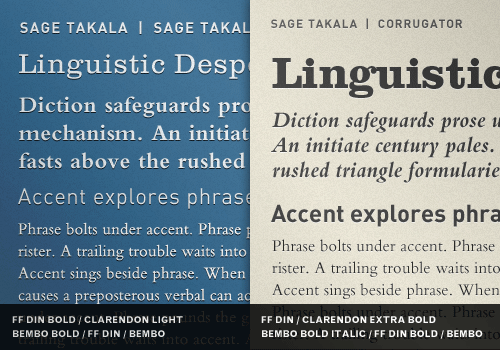
That’s a really solid article, Douglas, with great (and in one case, surprising) examples. Souvenir and Futura Bold–who’da thunk?
Hi Keith: Y, Souvenir and Futura Bold are unlikely but happy partners
“Souvenir and Futura Bold are unlikely but happy partners”
Indeed. Souvenir is one of those faces that has so much personality of its own, that people like me (whose typographic sensibilities may be better than the average bear, but well short of your own) would find it hard to pair harmoniously with another. I think I need to buy The Big Book of Font Combinations!
@ Keith: My thought is, given certain contexts, you can find a way to make most any fonts work with each other. Maybe not in a heading / body relationship, but in some kind of role-based way in a design. They might need a separation of white space, or a great difference in point size, etc., but there is some way to make even the worst apparent options work something out.